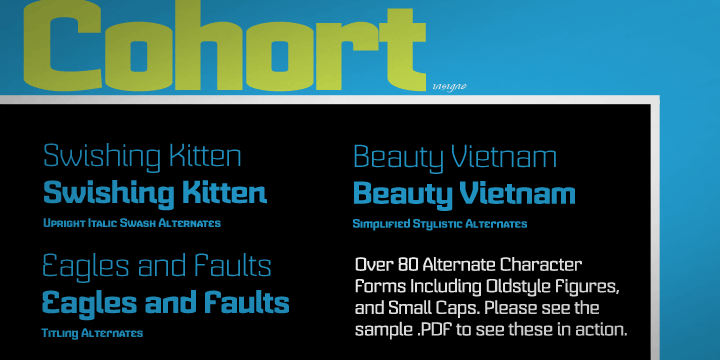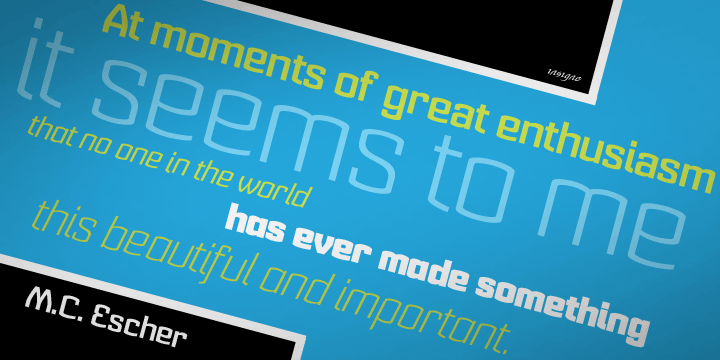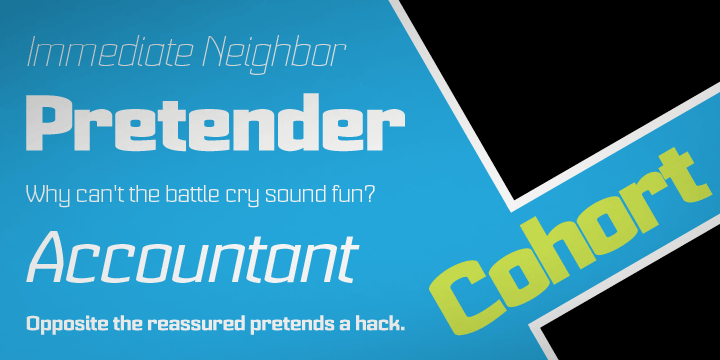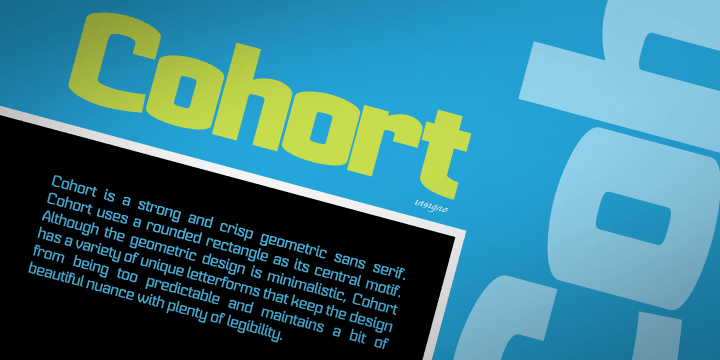
Cohort
Font Family by Insigne
Cohort is a strong and crisp geometric sans serif. Cohort uses a rounded rectangle as its central motif. Although the geometric design is minimalistic, Cohort has a variety of unique letterforms that keep the design from being too predictable and maintains a bit of beautiful nuance with plenty of legibility.
Cohort's six different weights give it a great deal of versatility, from its sharp and potent black weight to the fresh and razor sharp thin. Cohort can be used for logotypes, headlines or short blocks of text.
Cohort includes many useful OpenType features, including a set of upright italic swash alternates, ligatures, small caps, fractions and old style figures, sharper and more unique counterforms and simplified characters for titling. OpenType-capable applications such as the Adobe suite or Quark can take full advantage of automatically replacing ligatures and alternates. This family also includes the glyphs to support a wide range of latin based languages.